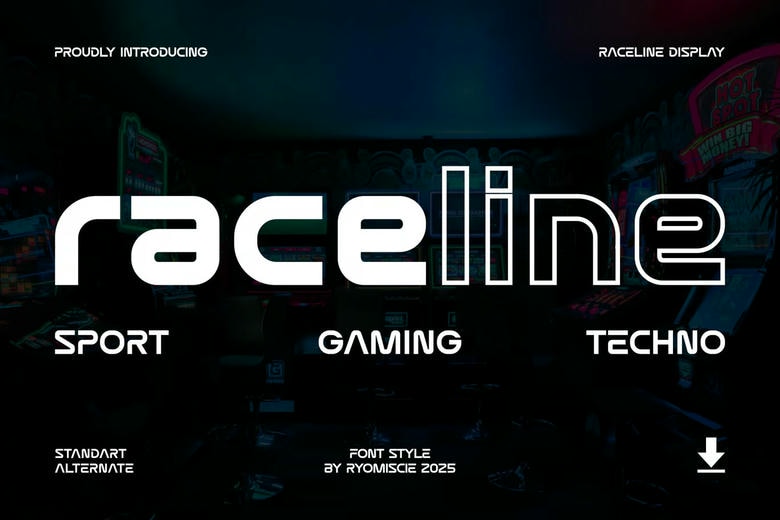
Raceline Sans Font
Raceline is a bold and authentic display font. The font is suitable for any branding project like logo, t-shirt printing, esport, and many more. outstanding in a wide range of contexts.
Raceline Sans Serif Font